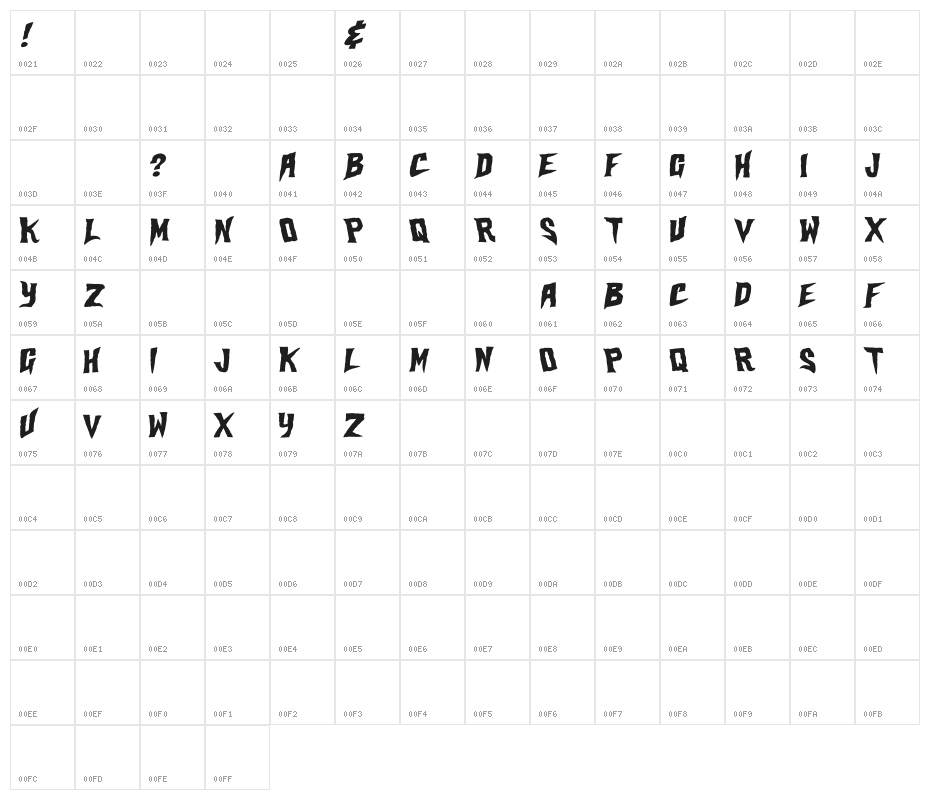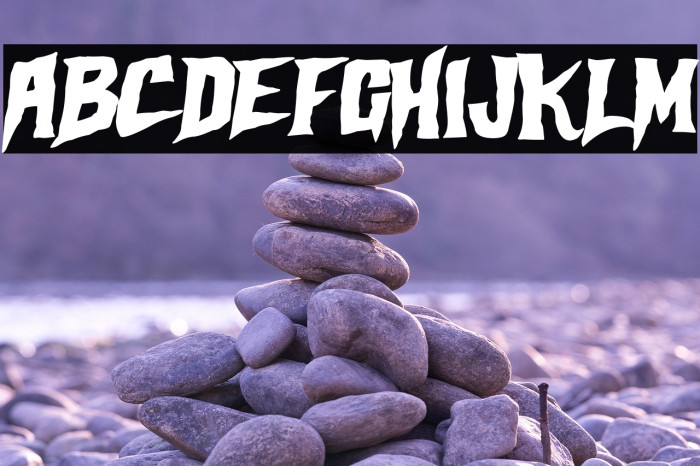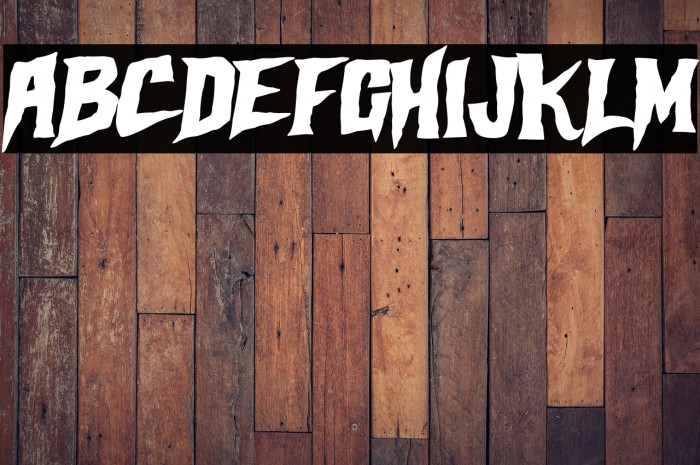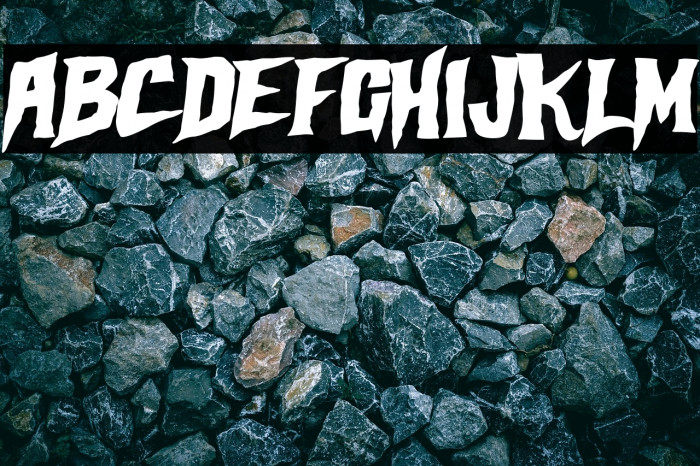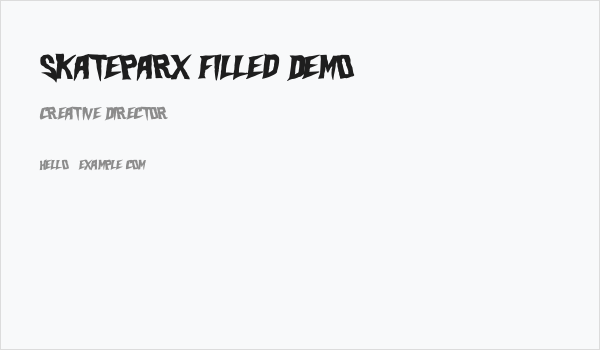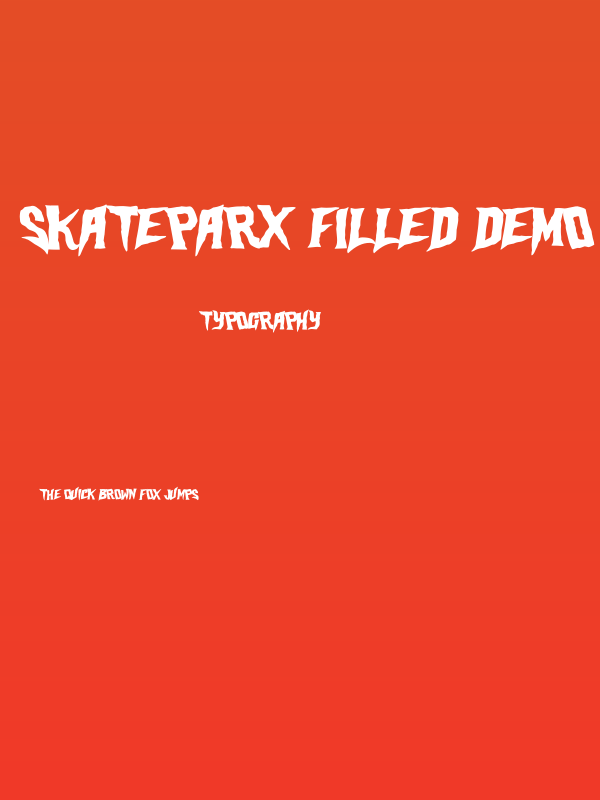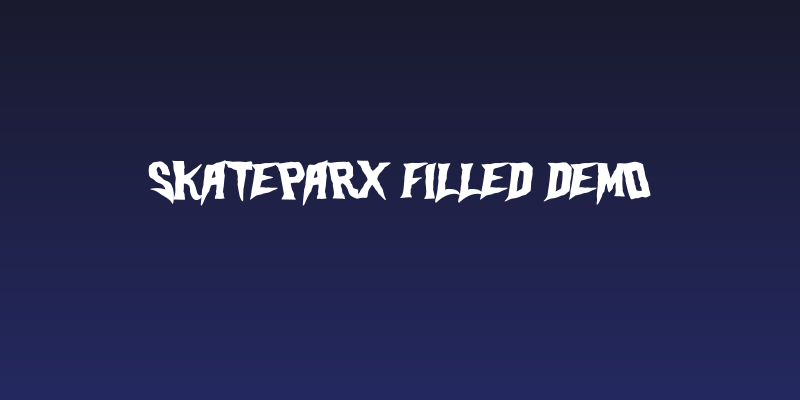
Skateparx Filled Demo Font
Skateparx Filled Demo Description
This font features a bold and edgy style, characterized by sharp, angular lines and a dynamic, energetic appearance. The letters are heavily stylized with jagged edges and a slightly irregular form, giving it a rebellious and unconventional look. The uppercase letters dominate the design, with a strong presence that commands attention. The font's aggressive and bold nature makes it ideal for projects that require a striking and impactful visual statement.
| Overall Style | Modern, Urban |
| Proposed Projects | Ideal for skateboarding brands, music album covers, graffiti art, and urban-themed posters. |